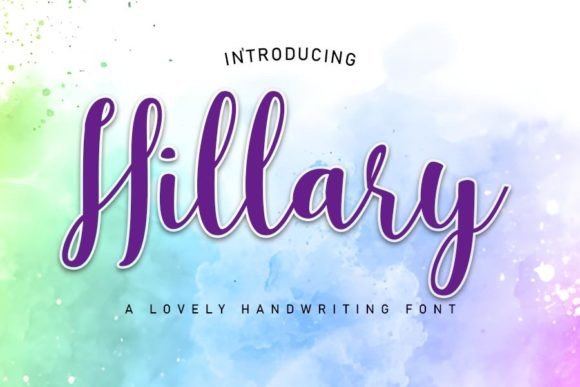
Prepare yourself to be swept off your feet by Hillary Font, the epitome of elegance and charm in the world of typography. This captivating script font, lovingly crafted by Snowman Studio, possesses an inherent ability to transform your designs into breathtaking masterpieces.
With its graceful curves and delicate strokes, Hillary Font exudes a romantic aura that is simply irresistible. Its meticulously designed characters dance across the page, creating a visual symphony that captures the hearts and minds of all who behold it. Whether you're crafting heartfelt greeting cards, eye-catching headlines, or captivating posters, Hillary Font is your perfect partner in crime.
Hillary Font's versatility knows no bounds. Its enchanting presence lends itself effortlessly to a multitude of creative endeavors. Picture your words taking flight on wedding invitations, adding a touch of magic to your social media posts, or gracing the pages of your latest novel. With Hillary Font as your ally, your designs will blossom into works of art that leave an everlasting impression.
Embrace the allure of Hillary Font and watch as your creative potential soars to new heights. Its ability to evoke emotions and captivate audiences is truly remarkable. Prepare to fall head over heels for this font's extraordinary charm and witness the transformation of your designs into breathtaking expressions of art.
Hillary Font beckons you to embark on a creative journey where imagination reigns supreme. Allow its romantic essence to infuse your projects with a touch of elegance, leaving a lasting impression on all who encounter your creations. Unleash the power of Hillary Font today and let your designs bloom into works of art that speak volumes.